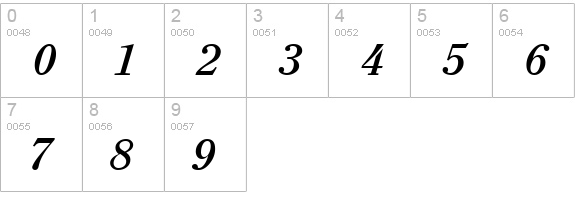
Clearface Bold Italic Font Details
Clearface Bold Italic is a strong, high-contrast, italic variant in the Clearface typeface family \xE2\x80\x94 well suited to headlines, attention-grabbing titles, and strong calls-to-action.
Clearface Bold Italic is a versatile and stylish font that exudes confidence and sophistication. Its bold yet elegant design makes it a perfect choice for adding a touch of modern flair to any project. The italicized style adds a dynamic and dynamic touch to the text, making it stand out from the crowd. The Clearface Bold Italic font is perfect for a wide range of design projects, from branding and advertising to editorial and display purposes. Its clean lines and balanced proportions make it easy to read and visually appealing, making it a popular choice among designers and creatives. Best of all, Clearface Bold Italic is available for free download at FontsMarket.com. This means you can easily access and use this stunning font in your projects without any cost. Don't miss out on the opportunity to enhance your designs with the timeless elegance of Clearface Bold Italic font.